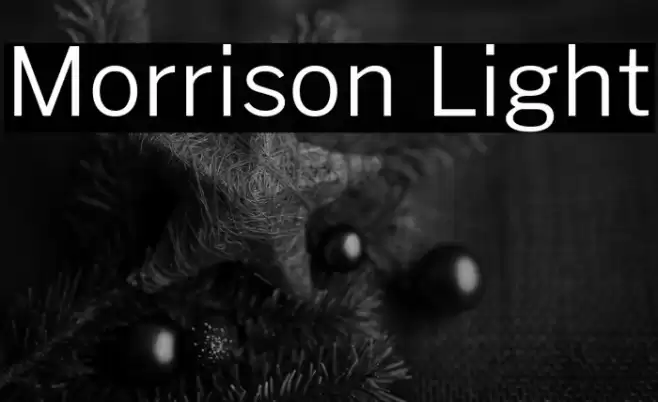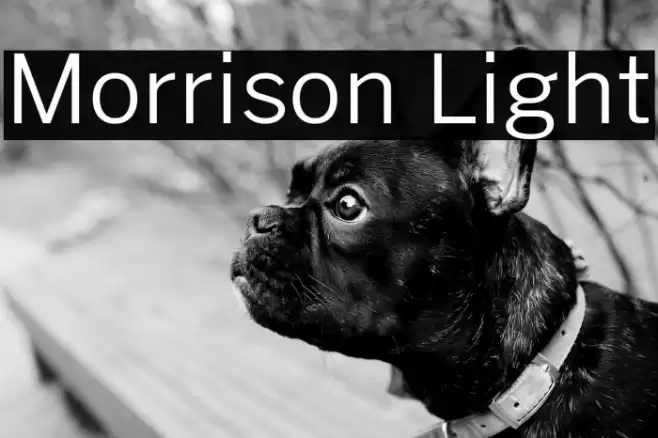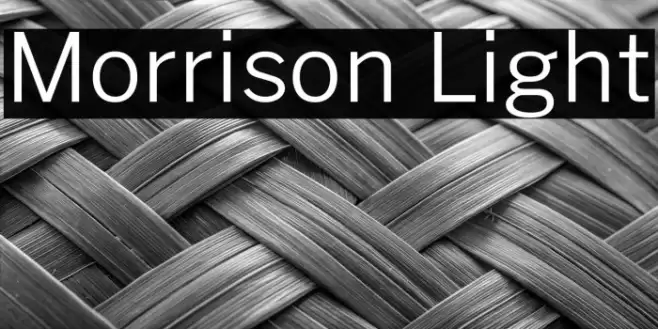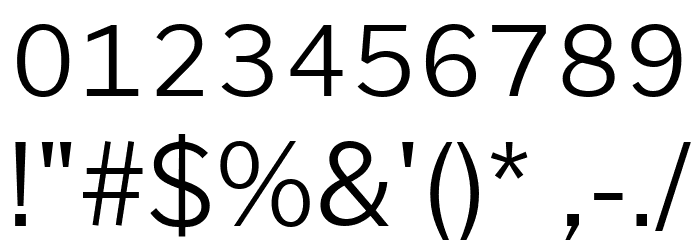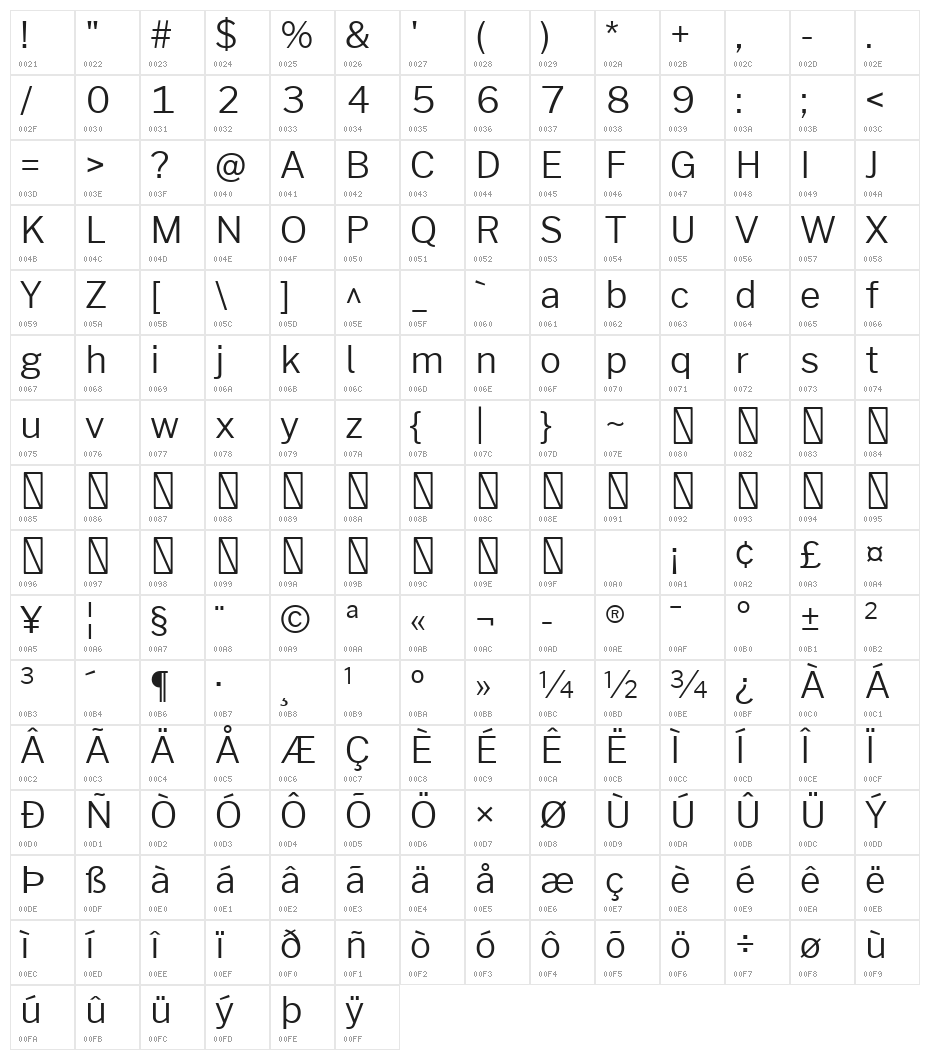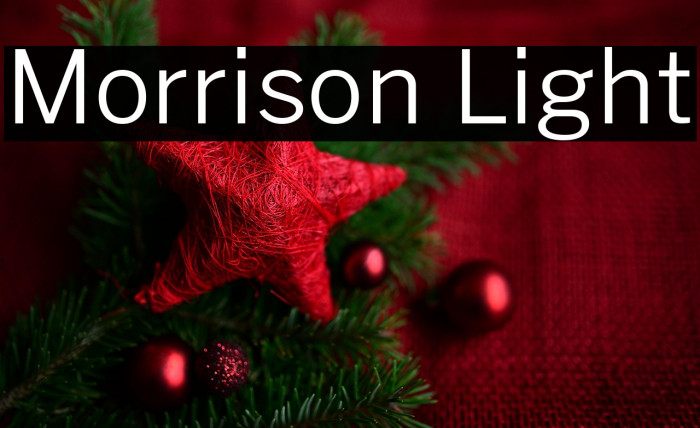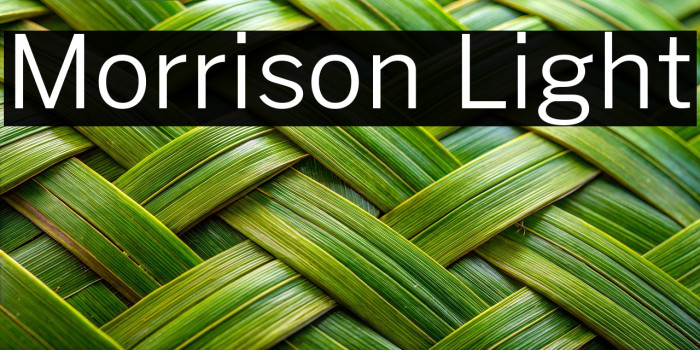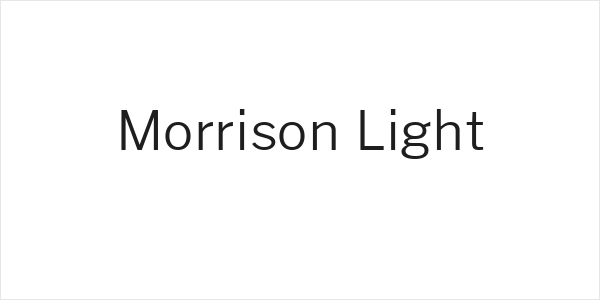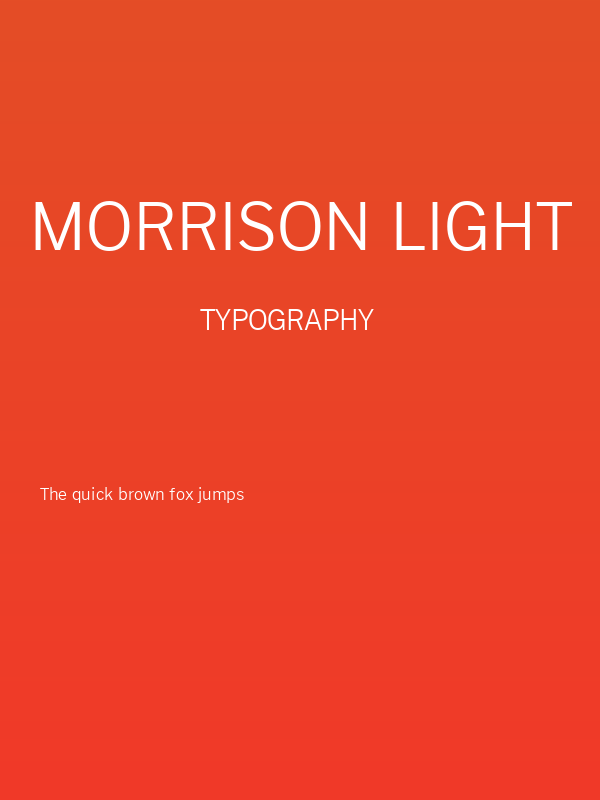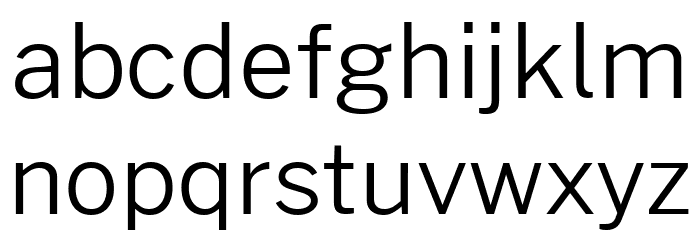
Morrison Light Font
Morrison Light Description
This typeface presents a clean and modern aesthetic with its sans-serif design. The characters are evenly spaced, providing a balanced and harmonious appearance. The strokes are consistent in width, contributing to a uniform look across all letters and numbers. The uppercase letters are slightly taller than the lowercase, offering a clear distinction between the two. The numerals are straightforward and easy to read, making them suitable for various applications. Special characters are well-defined, maintaining the overall simplicity and clarity of the font. Its minimalistic style makes it versatile for both digital and print media.
A clean, modern sans-serif typeface with uniform strokes and balanced spacing from Sans Serif fonts.